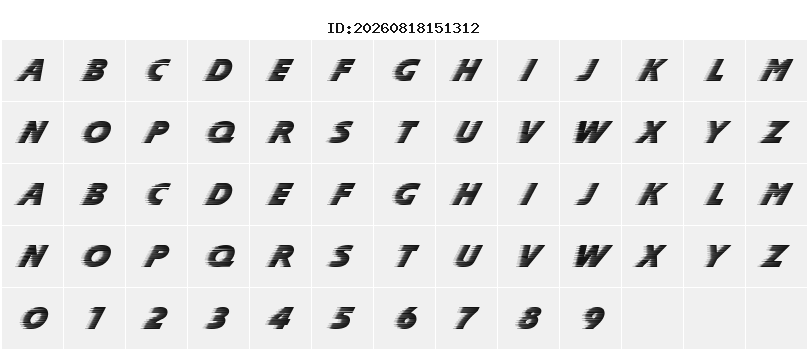
Slipstream LET Preview
• Font Name: Slipstream LET
• Full Font Name: Slipstream LET Plain
About Slipstream LET.ttf
Slipstream LET.ttf is a modern, elegant sans-serif font designed for ultimate readability and visual harmony. Perfect for branding, headlines, web design, and print materials.